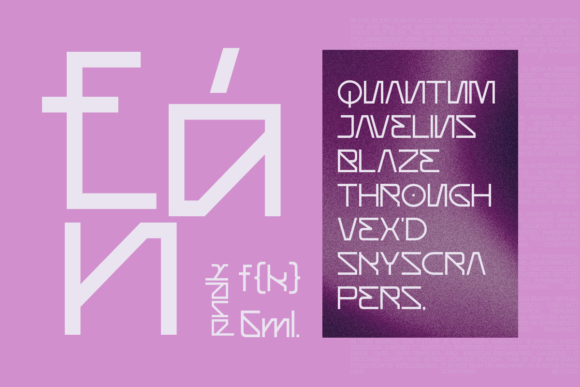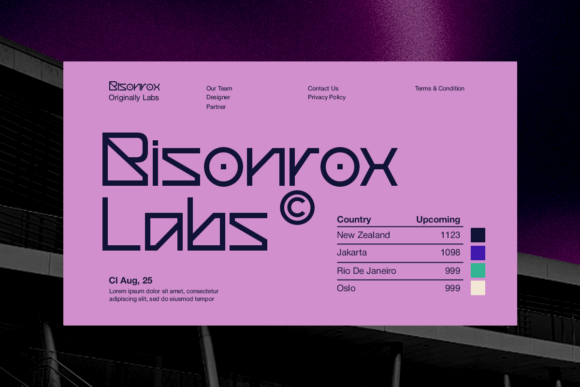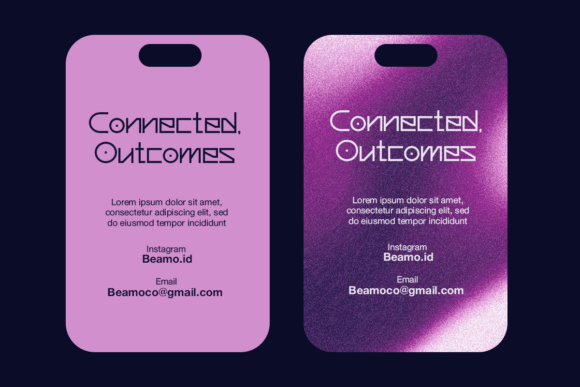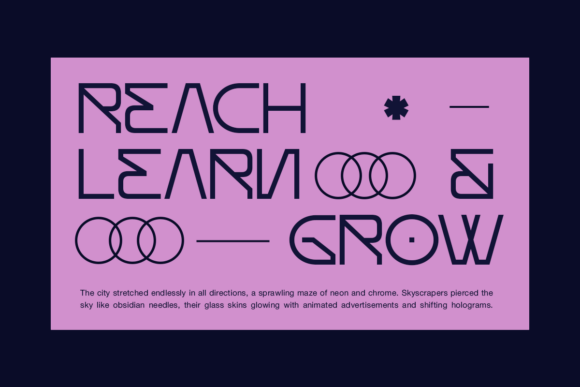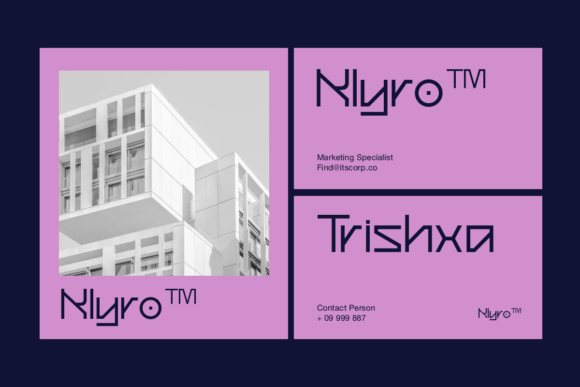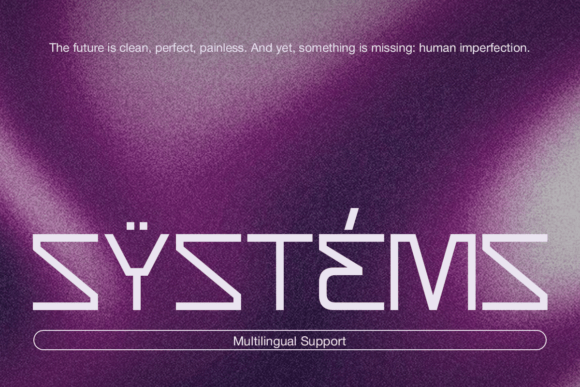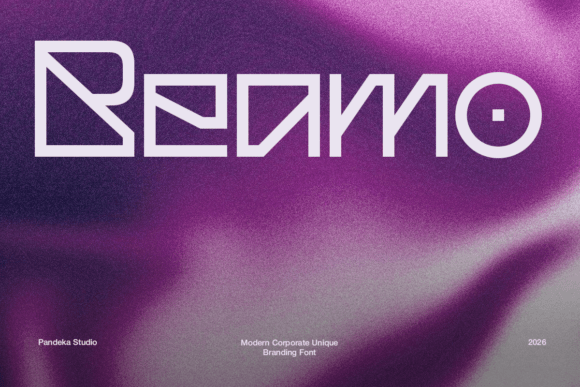
Unlock the Future of Design with Beamo Font
Imagine you’re brainstorming ideas for a futuristic tech startup, and you stumble upon the perfect font to capture the essence of innovation and sleekness. You envision a logo that screams ‘cutting-edge’ and ‘bold’ – and that’s exactly where Beamo Font comes in.
Beamo Font is a modern branding font designed to create clean, sleek, and innovative visual identities. With its unique letterforms combining minimalist structure and experimental shapes, it’s perfect for technology branding, corporate identities, digital interfaces, and more. Whether you’re a designer looking to give your project a bold and sophisticated presence or a startup seeking to establish a strong brand identity, Beamo Font is an invaluable asset.
What sets Beamo Font apart is its flexibility – available in two styles, Regular and Slant, it offers designers the freedom to experiment with creative branding and contemporary typography projects. From sci-fi visuals to UI design, music covers to advertising, Beamo Font delivers a strong futuristic atmosphere while maintaining readability and stylish character.
Beamo Font Key Features
- Size and Resolution: The font family includes 4 font weights (Thin, Light, Regular, and Bold) and supports a wide range of languages, including Latin, Cyrillic, and Greek scripts.
- Unique Characteristics: Beamo Font features a unique blend of modern and futuristic elements, making it ideal for creative and tech-related projects.
- Line Height and Kerning: The font has optimized line height and kerning to ensure smooth text flow and readability, even at small font sizes.
- Scalability: Beamo Font is designed to be highly scalable, making it suitable for use in various mediums, from print to digital displays.
- Language Support: The font includes comprehensive language support, covering over 150 languages and ensuring that your designs can reach a global audience.
Beamo Font Review
Overall, I found Beamo Font to be a solid addition to any designer’s toolkit. It works well in ✨ **headers and titles**, adding a touch of modernity and sophistication to any project. The font is also quite versatile and can be used in ✨ **body text**, making it a great choice for a wide range of applications.
One of the standout features of Beamo Font is its ✨ **high-quality vector graphics**, which make it ideal for use in digital products and applications. The font also comes with a wide range of languages supported, making it a great choice for designers who work with global clients.
While Beamo Font is a great choice for many designers, there are a few limitations to be aware of: ⚠️ **limited ligature support** and ⚠️ **no contextual alternates**. These limitations may make it less suitable for designers who work with complex typography or require a high level of customization.
Beamo Font is a great choice for designers who are looking for a modern, versatile font that is easy to use. While it may not be the best choice for every project, it is definitely worth considering for designers who want a high-quality font that is easy to work with.
- ✨ High-quality vector graphics
- ✨ Support for a wide range of languages
- ✨ Modern and sophisticated design
- ⚠️ Limited ligature support
- ⚠️ No contextual alternates
Getting the Most Out of Beamo Font
To get the most out of Beamo Font, use it in combination with bold and italic text styles to create visually appealing contrast. Experiment with different font sizes and colors to add emphasis to your text.
Beamo Font is commonly used for:
- Logos and typography-based designs
- Presentations and documents
- Website and app interfaces